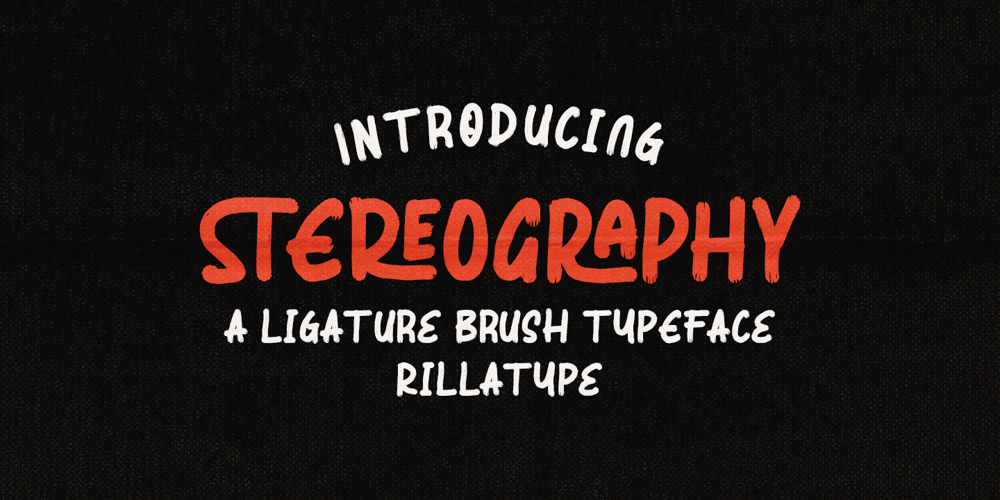
Stereography Font Family was designed by Gustian Agung Asprilla and published by Rillatype. Stereography contains 1 styles and family package options. Introducing, Stereography, a handwritten ligature brush typeface. this typeface is created carefully to make this font stand out with it’s ligature feature and brush texture. on top of that, this font have alternates character to make this font more attractive! This font is very suitable for logo, headline title, tshirt, branding, packaging, etc.Features : numbers and punctuation multilingual ligatures alternates swashes PUA encoded We highly recommend using a program that supports OpenType features and Glyphs panels like many of Adobe apps and Corel Draw, so you can see and access all Glyph variationsEmail us to rillatype@gmail.com if you need something! Happy Designing!